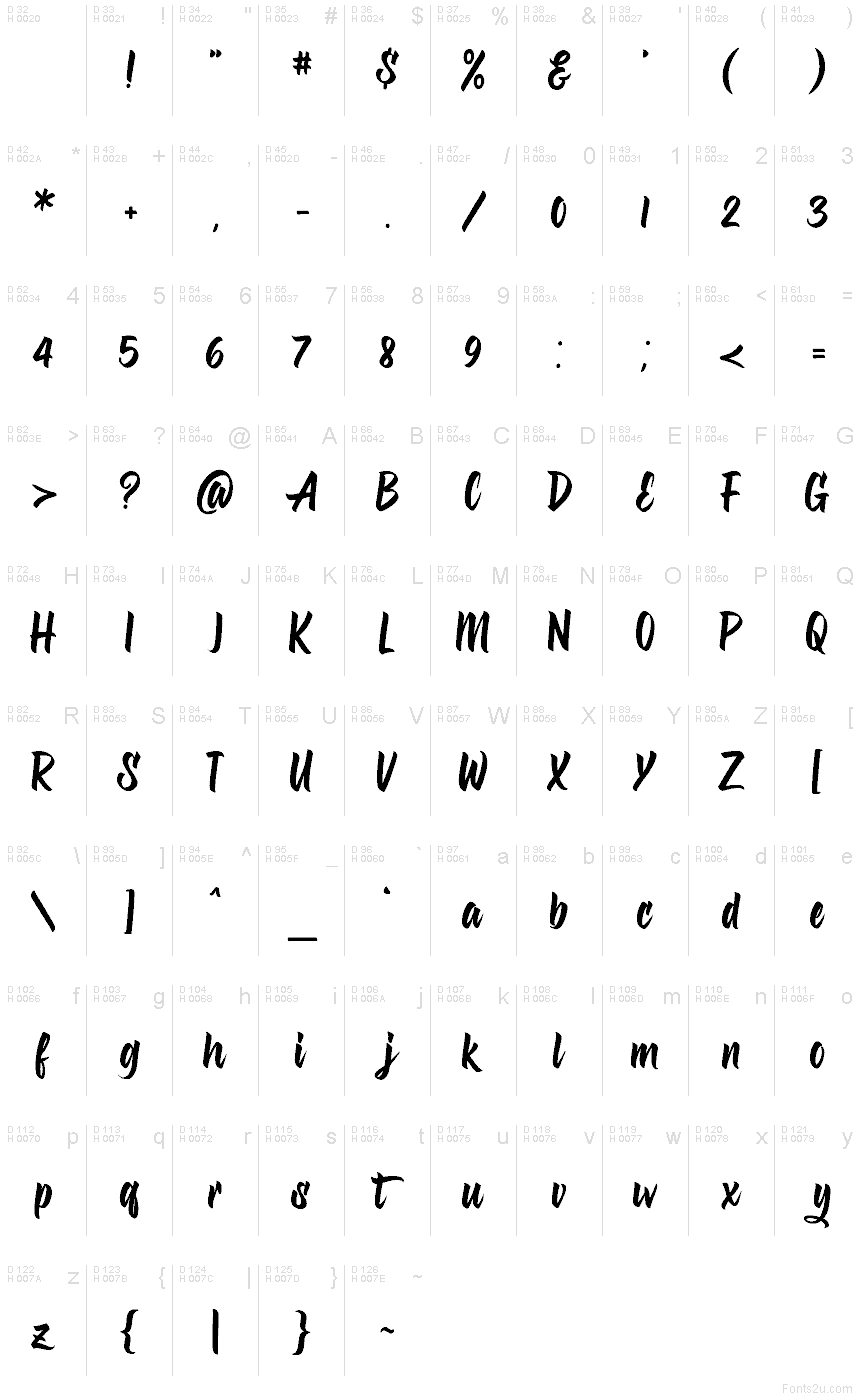
Grenadita Script
Grenadita Script font by Cat.B is a free brush font. It stands out with lush, inky strokes that look hand-painted—thick downstrokes, quick dry-brush flicks, and a lively slant that keeps words moving without losing clarity. The texture feels tactile and slightly grainy, like fresh marker on rough paper, giving headlines instant warmth and attitude.
Using Grenadita Script, you can add punch to product packaging, café menus, beauty branding, social posts, event flyers, and poster titles. Its tight rhythm and generous contrast hold up at large sizes while staying readable in short phrases. This free font shines on merch and sticker-style logos too. Pair with a clean geometric sans for details, and let the script take the spotlight at 110–140% line spacing.